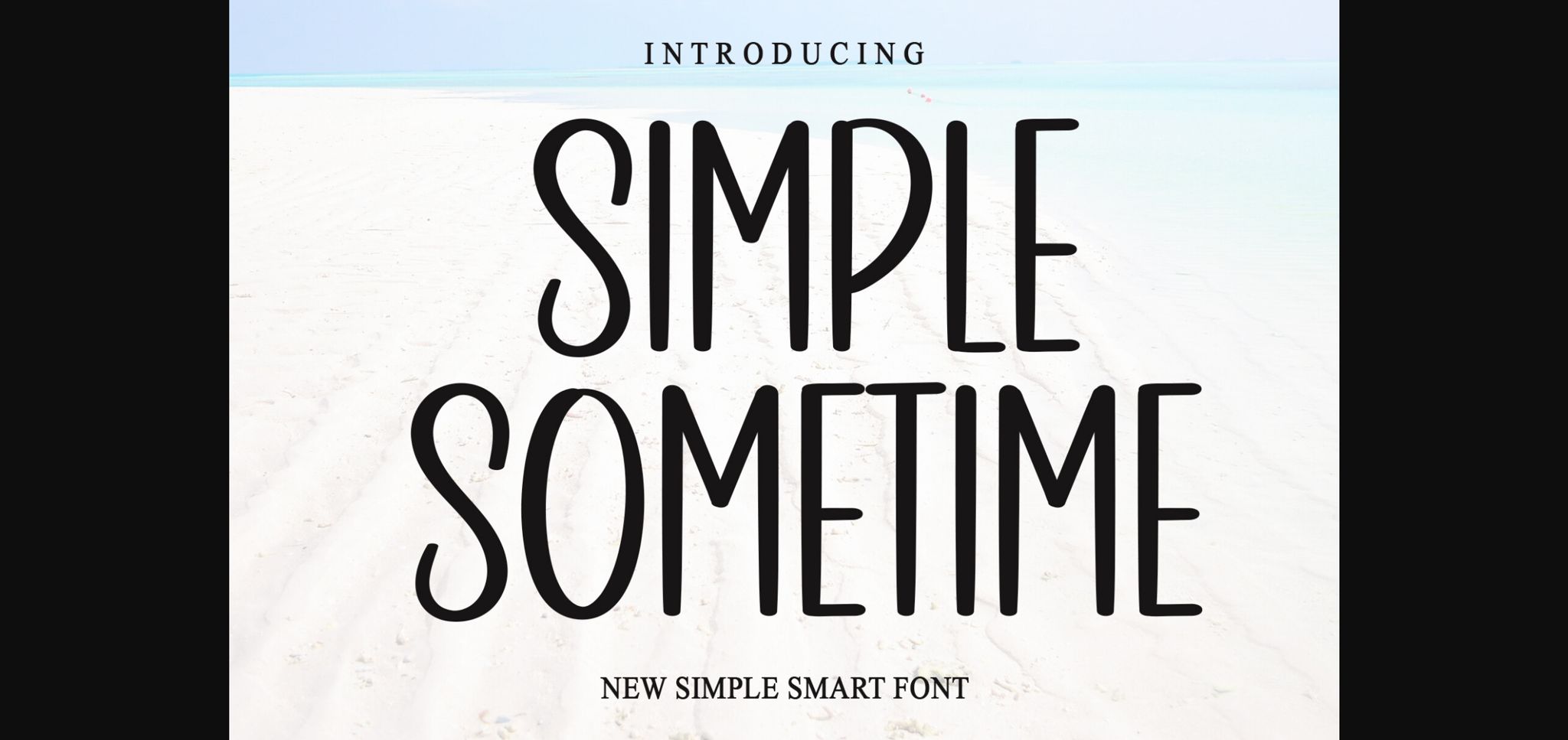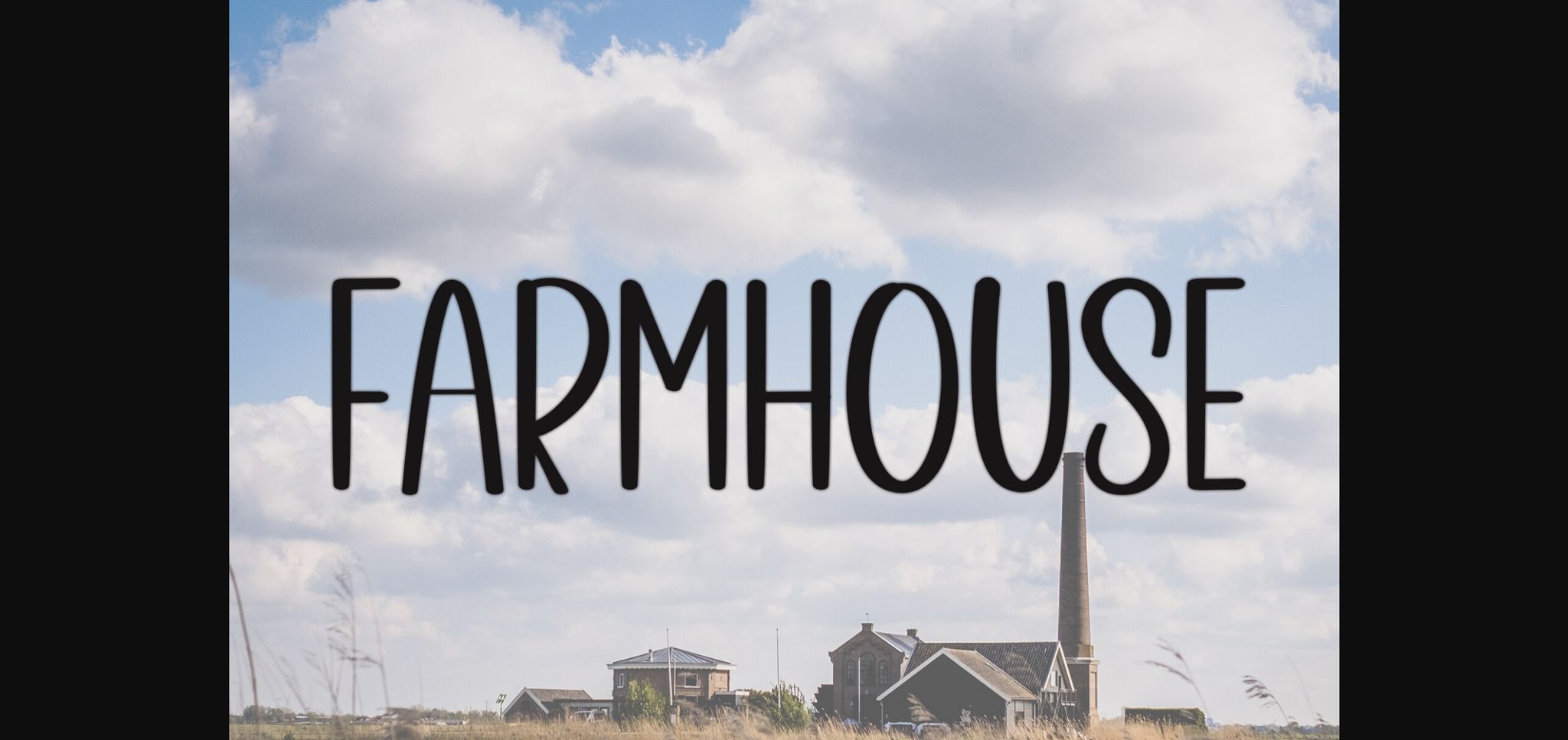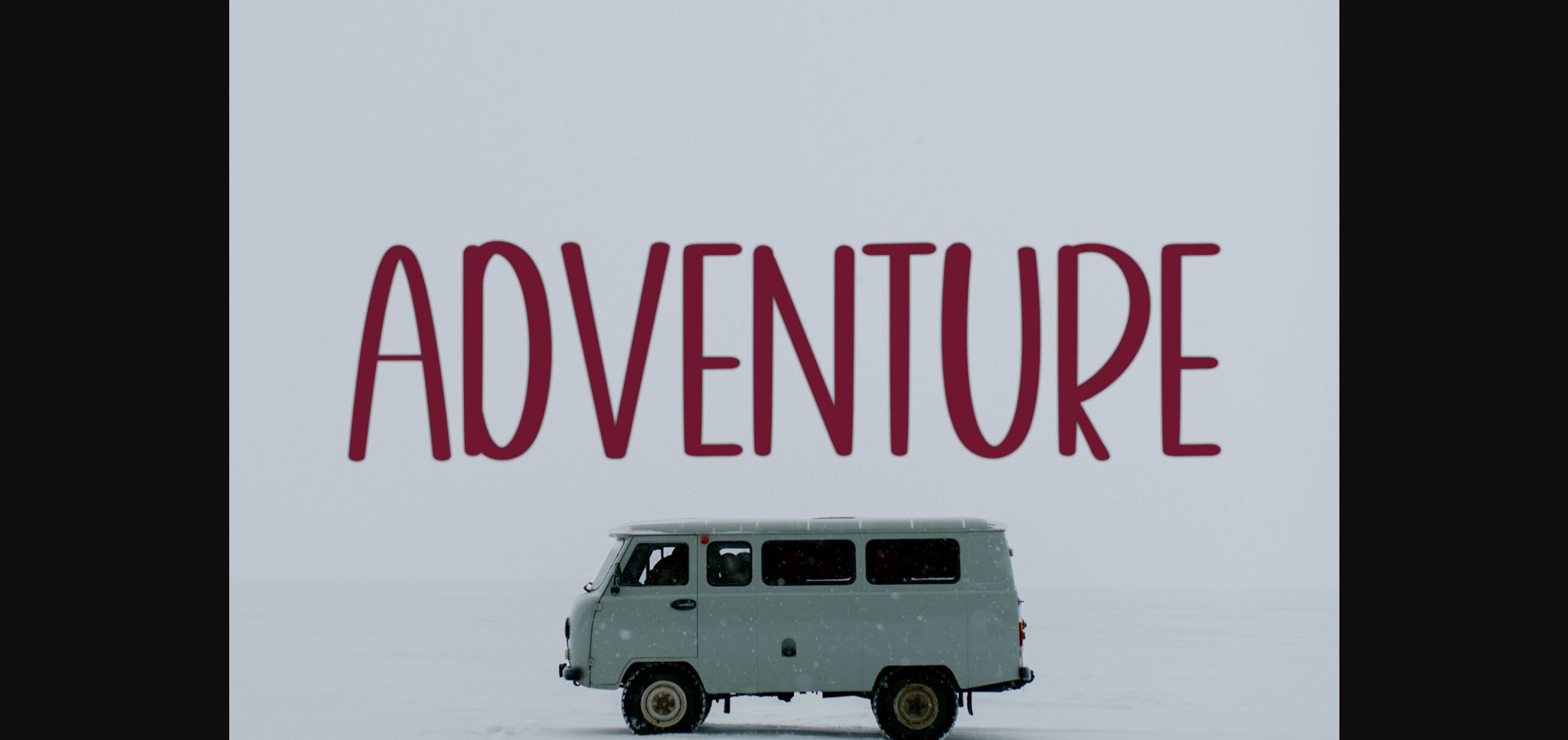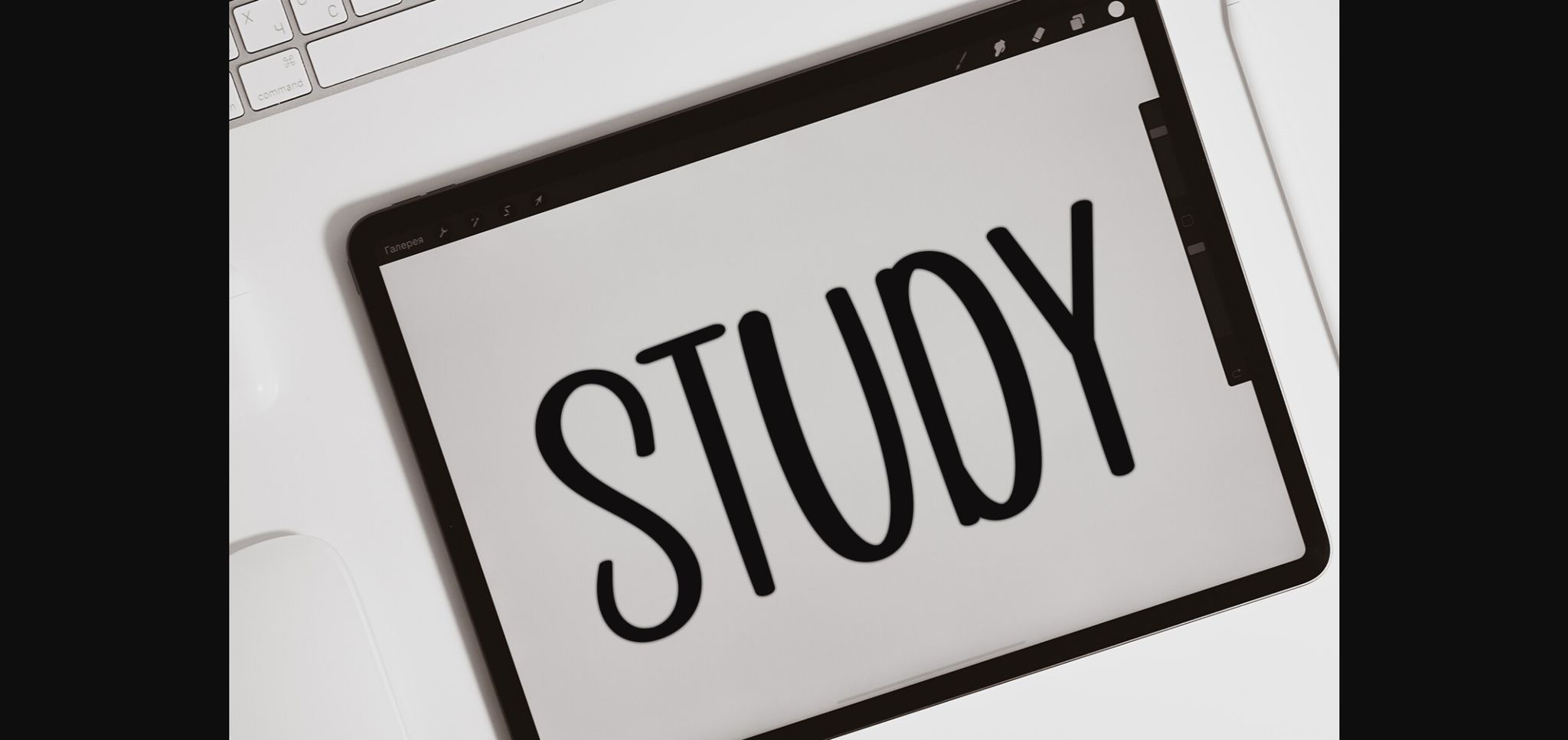
About Simple Sometime Font
Simple Sometime is a casual sans-serif font with a laid-back vibe and a touch of elegance. Its clean lines and rounded edges give it a friendly appearance, while subtle variations in stroke width add character. Perfect for branding, logos, and editorial designs, this font brings a sense of warmth and approachability.